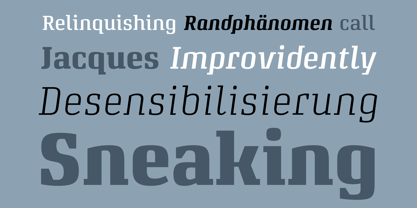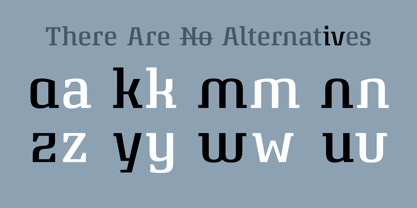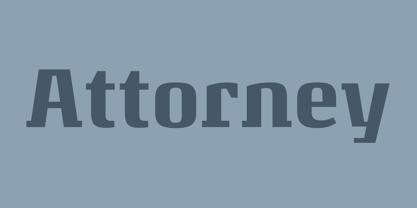
Attorney
by Schriftlabor
The Attorney Font Family was designed by Viktor Solt-Bittner and published by Schriftlabor. Attorney contains 18 styles and family package options.
Austrian designer Viktor Solt-Bittner originally developed Attorney as a custom font for a law firm, hence its name. Produced and published by Schriftlabor, Attorney shows unconventional, yet systematic placement of its serifs, hard corners and a clean design. Make the most of the nine Attorney weights, from Extralight to Black, each of them accompanied by an italic, totalling in no less than 18 styles. Let the typographic geek in you rejoice with multiple figure sets, small caps, many alternative forms accessible through OpenType features, and a full Cyrillic glyph set, carefully reviewed by professional script natives.
Designers: Viktor Solt-Bittner
Publisher: Schriftlabor
Foundry: Schriftlabor
Design Owner: Schriftlabor